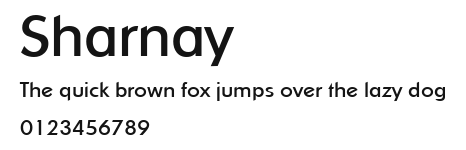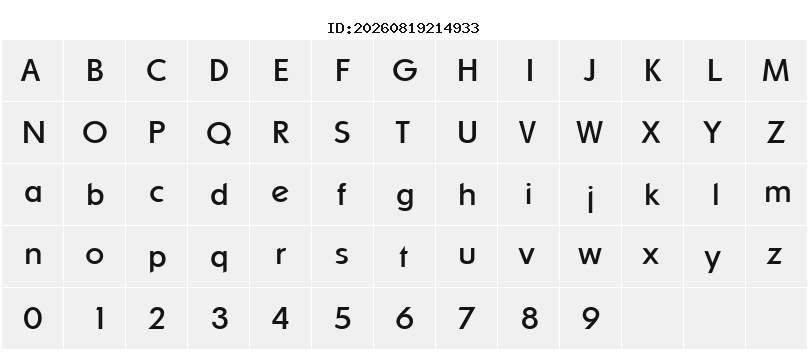
• Font Name: Sharnay
Sharnay.ttf is a modern, elegant sans-serif font designed for ultimate readability and visual harmony. Perfect for branding, headlines, web design, and print materials.